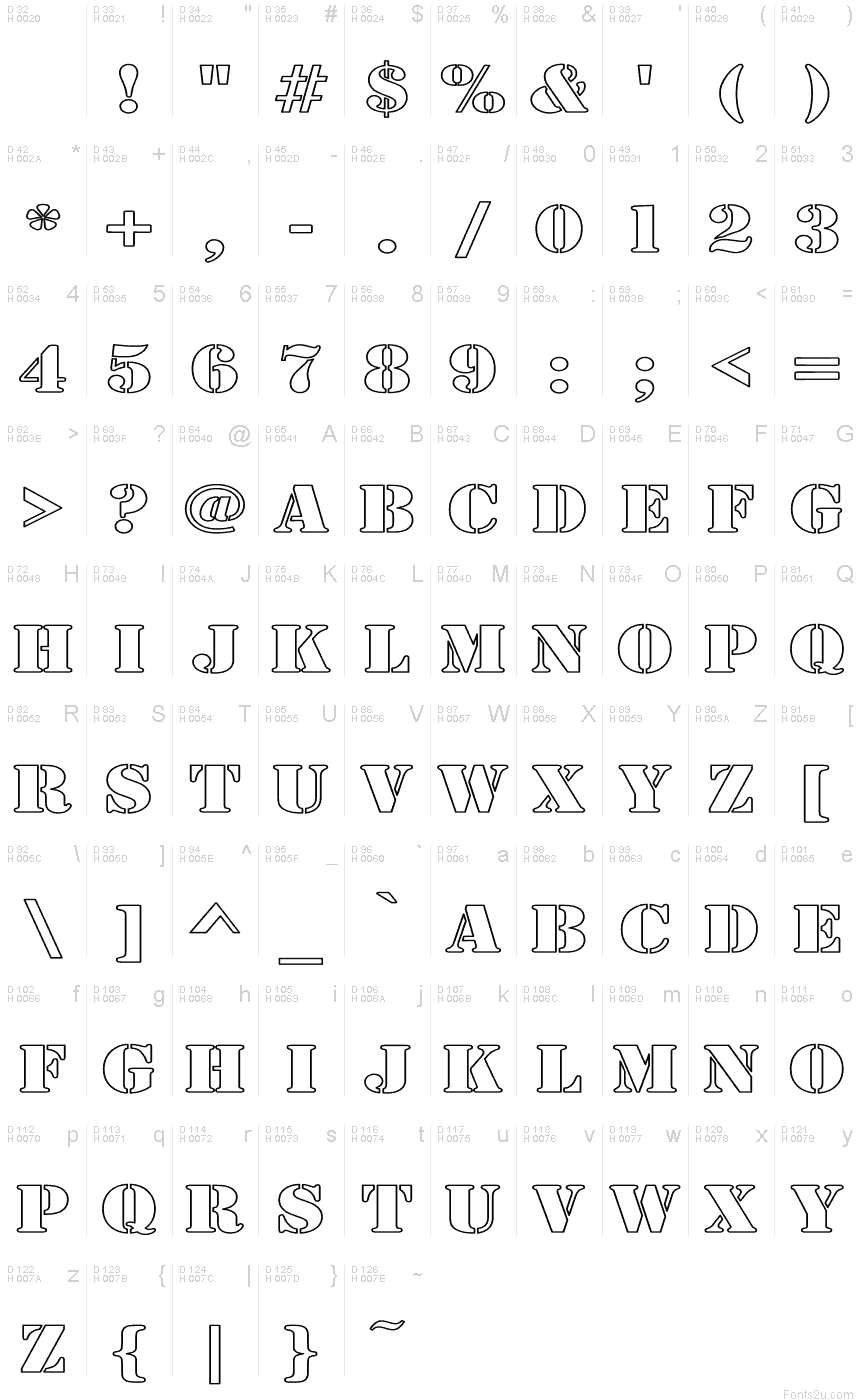
Army Hollow Wide
Army Hollow Wide font by Alltype gives old-school outlined serif lettering a broad, carved look that feels sturdy without turning heavy. As a free font from the Army family, its open interiors and wide-set shapes keep big words readable while adding a tough, vintage edge.
Army Hollow Wide works best on posters, signage, team logos, product packaging, labels, event flyers, and title cards where you want presence with a little air in the forms. Try it large and pair it with a plain sans serif for banners, menus, or badge-style layouts.